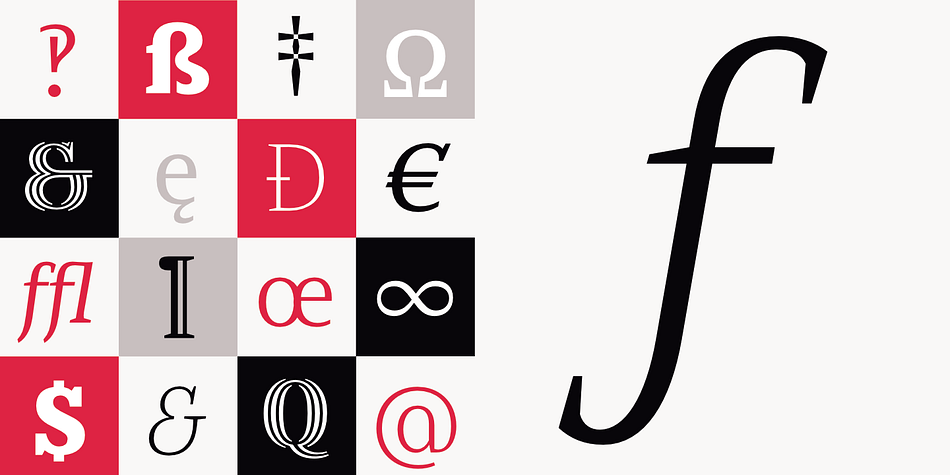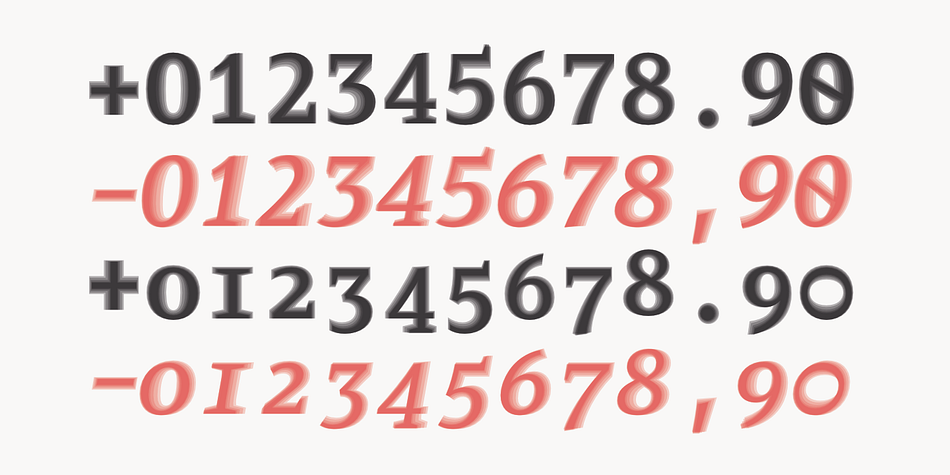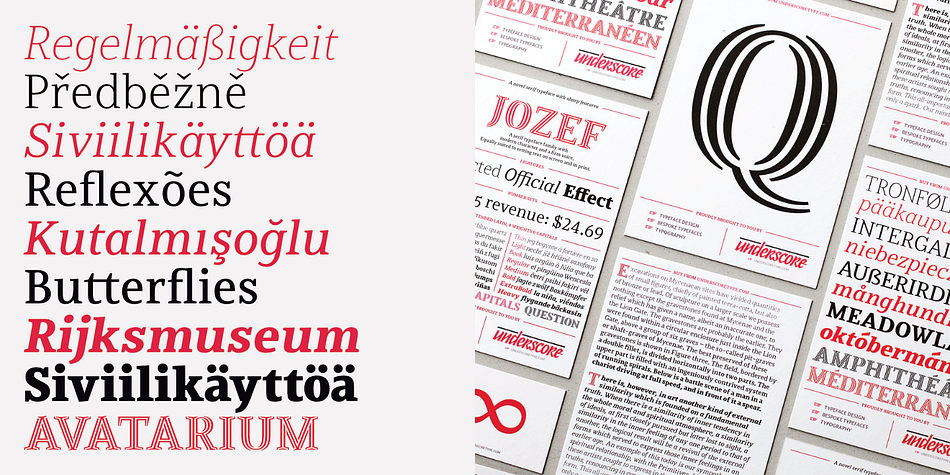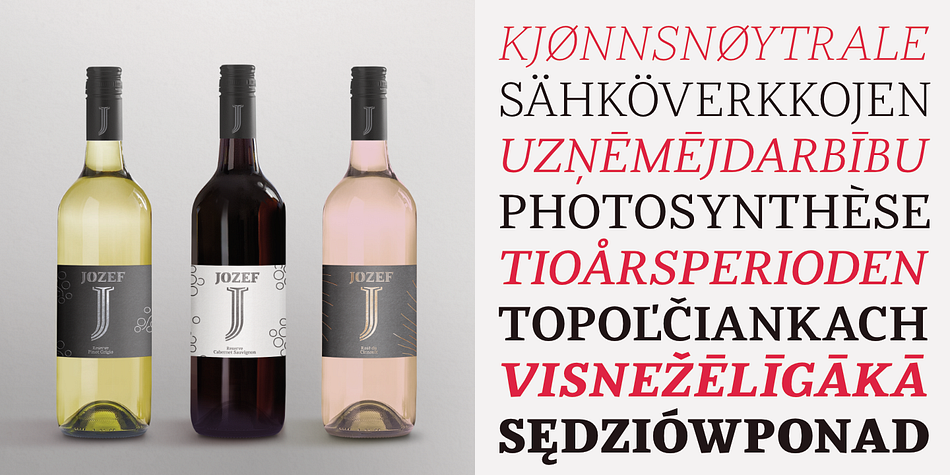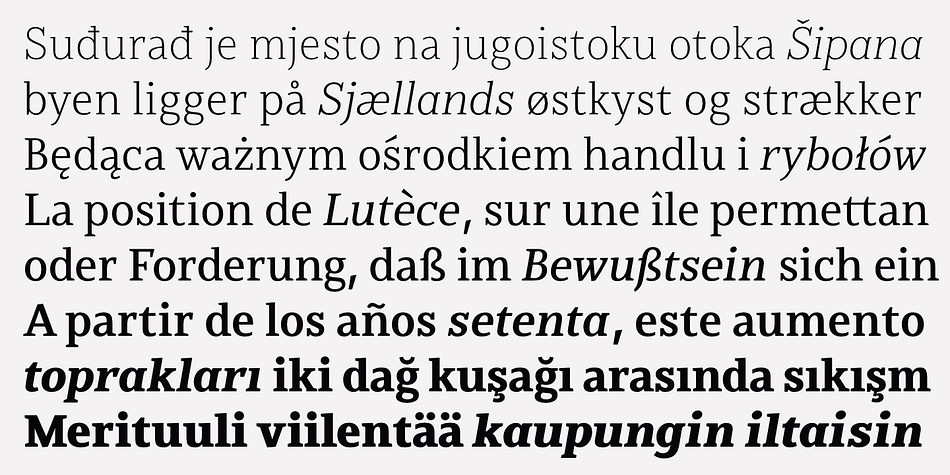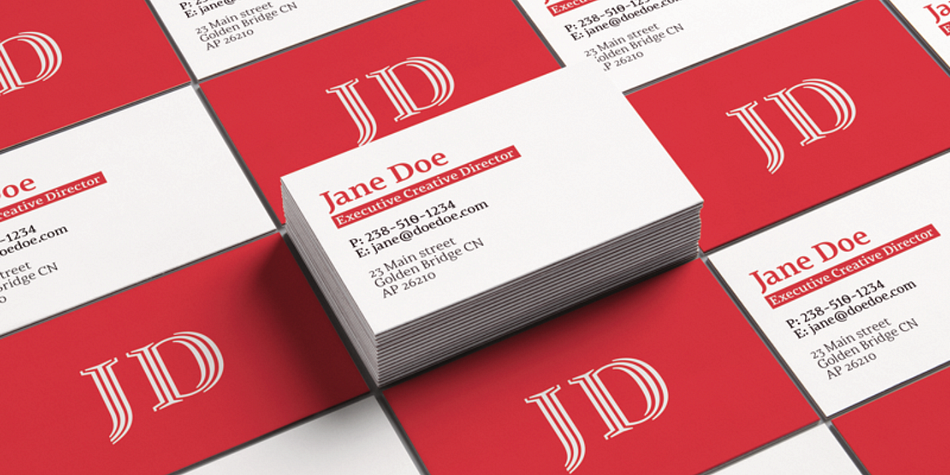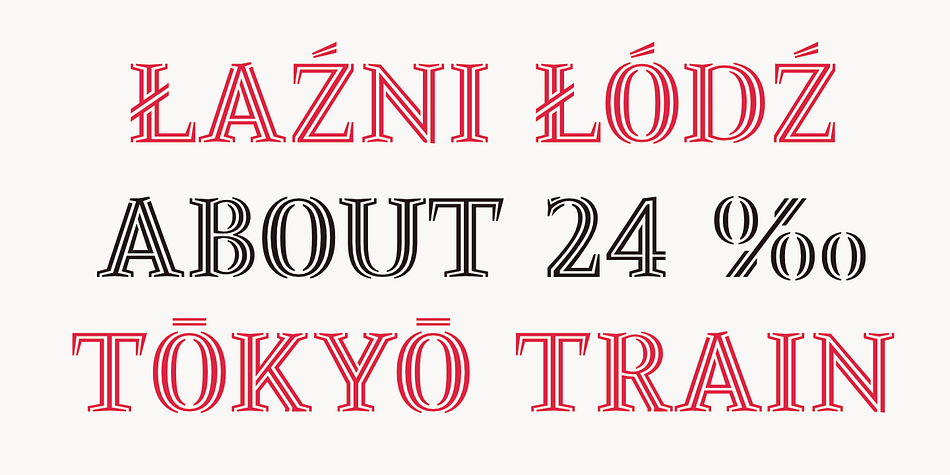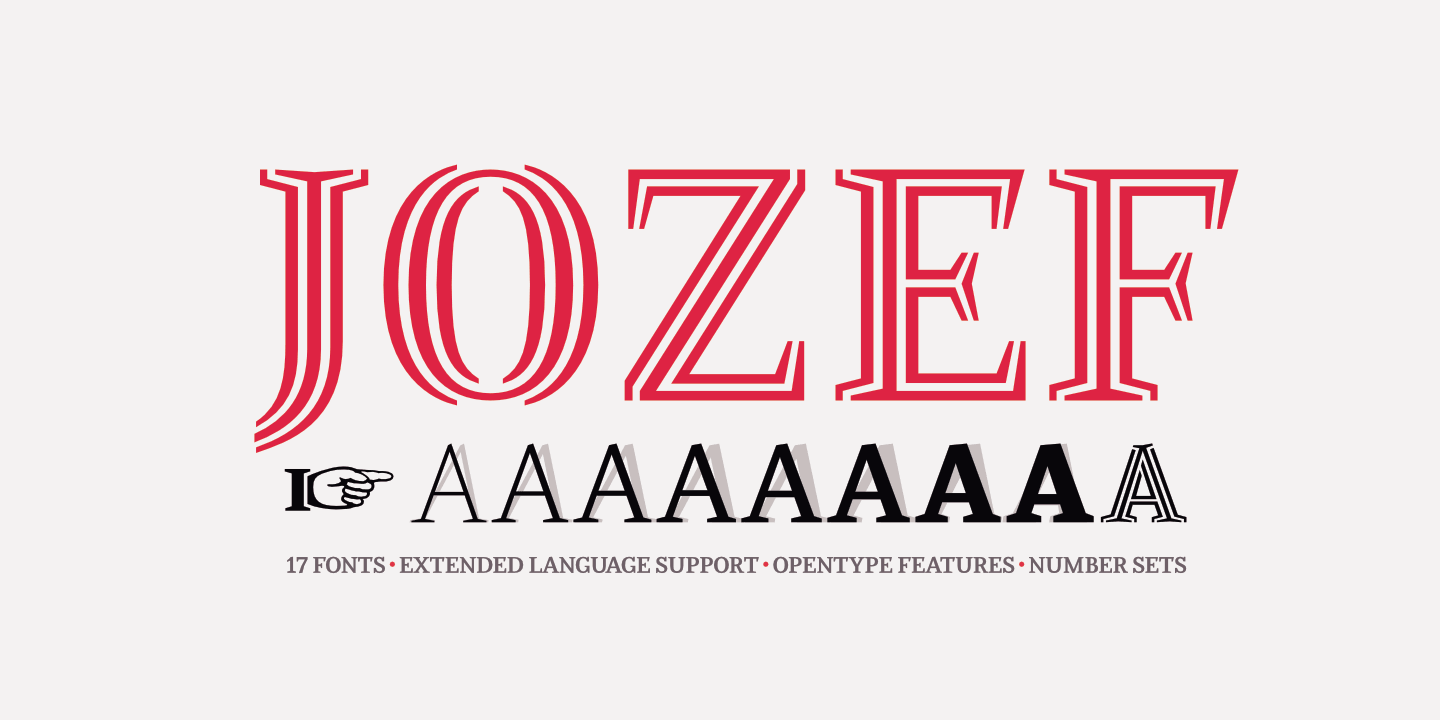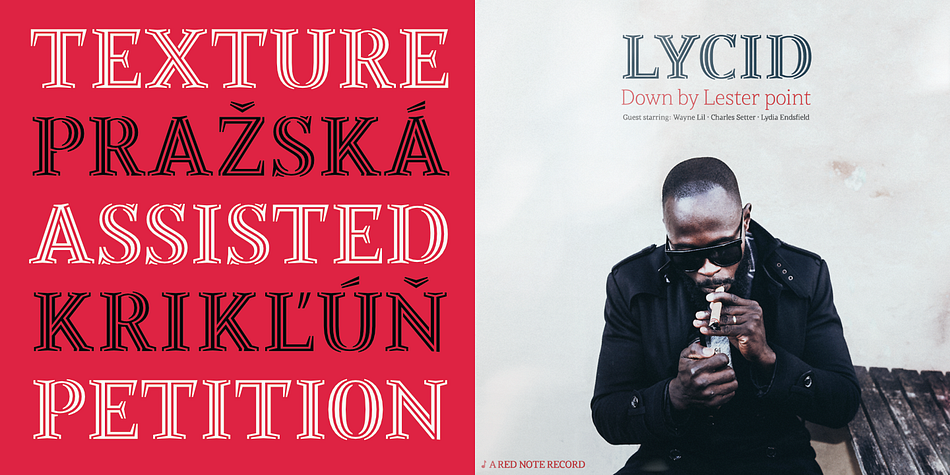
Designed by Johannes Neumeier, Jozef is a serif font family. This typeface has seventeen styles and was published by Underscore.
Jozef is a serif typeface family with modern character and a firm voice. It is equally suited to setting text on screen and in print. With eight weights, matching italics, and decorative capitals it offers a plentiful typographic range, and provides language support for extended latin. The sharp serifs equip this typeface with a strong tone and clear legibility, while the italics offer a softer but equally solid appearance. Opentype features, number sets and a wide range of typographic characters make this a resourceful text typeface.
Jozef was designed by Johannes Neumeier and is published through Underscore Type in 2018.